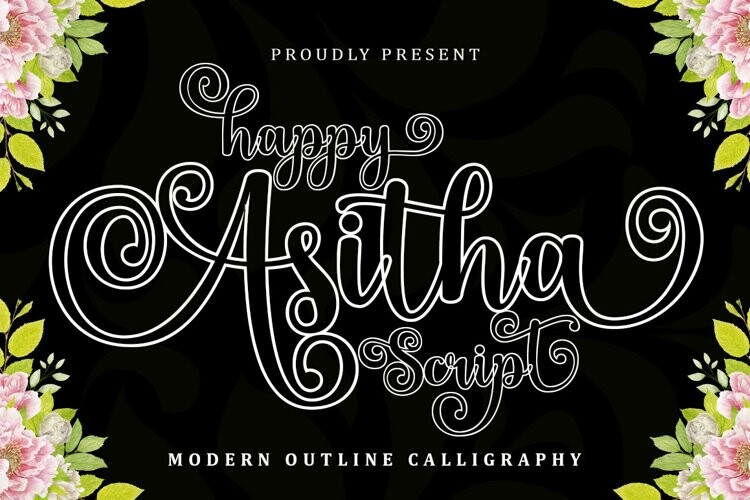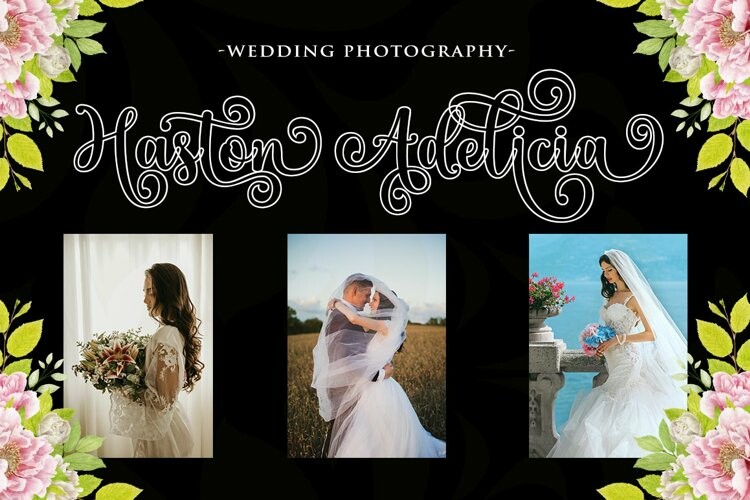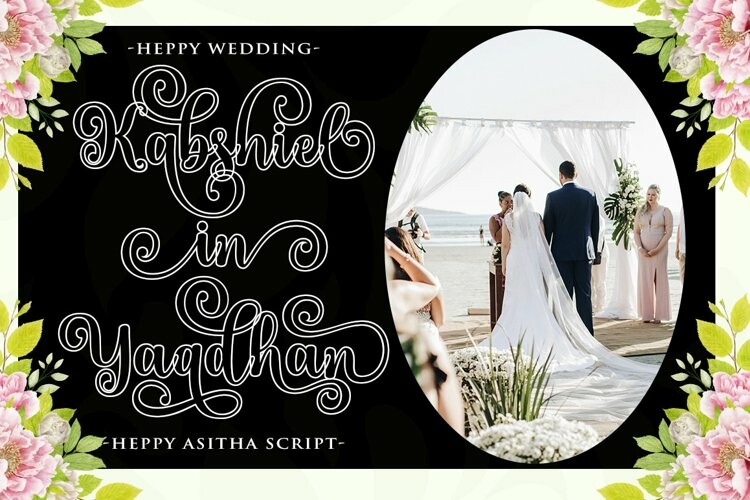
Happy Asitha Script Font
Happy Asitha Script FontHappy Asitha Script is a modern calligraphic design, incl
Regular. This font is casual and pretty with a stroke. Can be used for
various purposes. such as logos, product packaging, wedding invitations,
branding, headlines, signage, labels, signatures, book covers, posters,
quotes, and more.